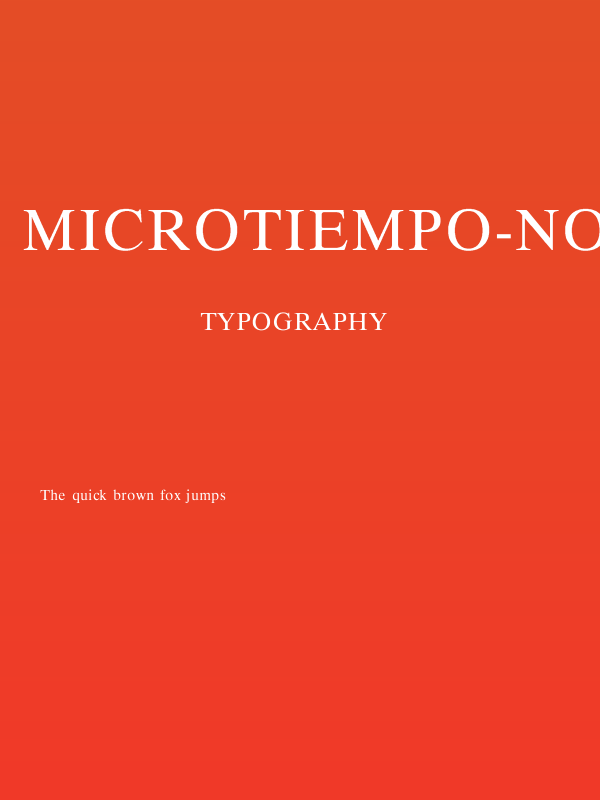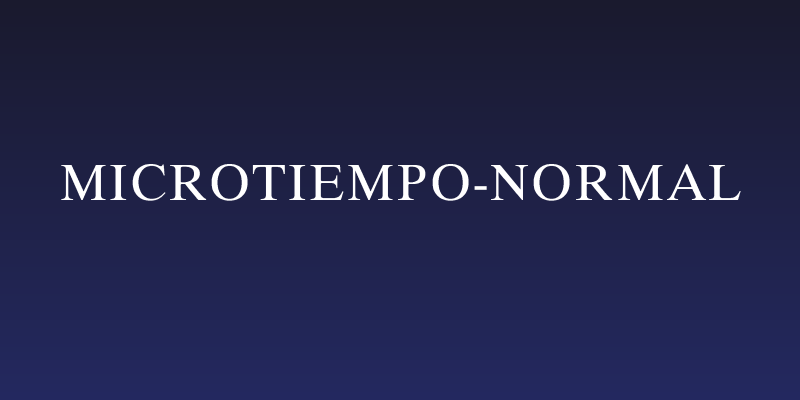
MicroTiempo-Normal Font
✎ Serif
| おすすめプロジェクト | Ideal for editorial design, book covers, formal invitations, and branding materials that require a sophisticated touch. |